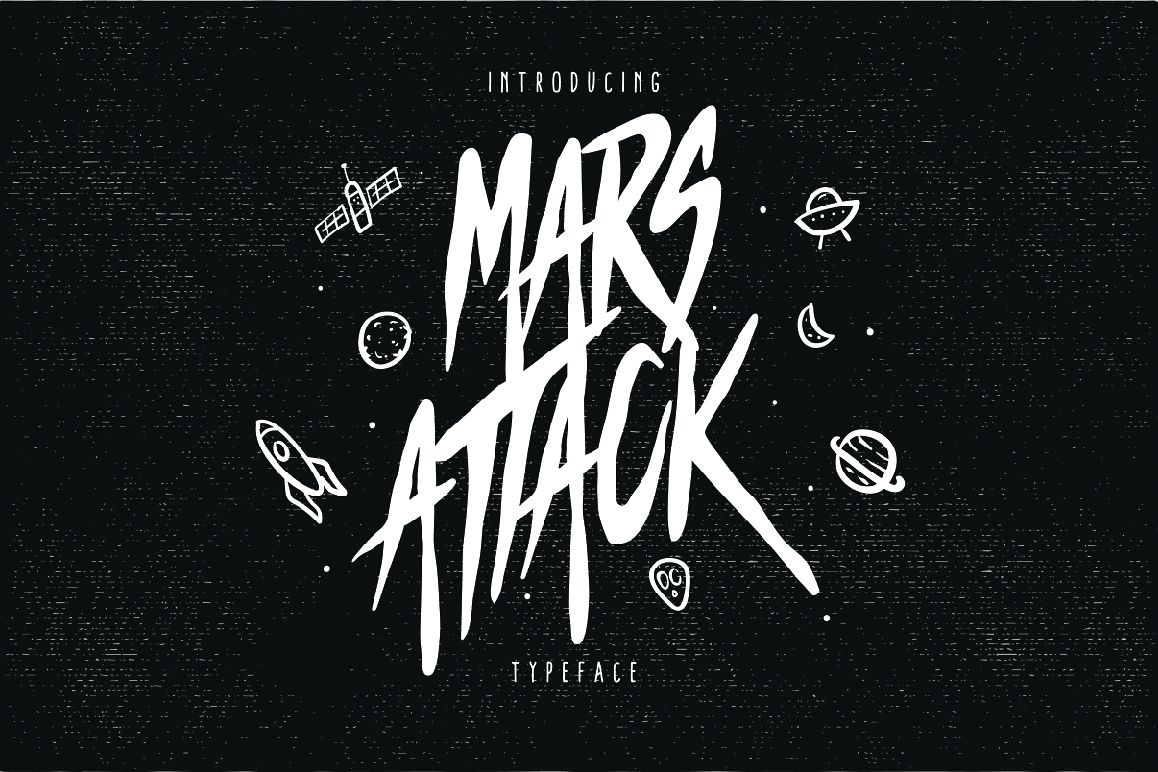
Mars Attack Typeface
MARS ATTACK TYPEFACE can make it easier to convey the message in your design. Use for awesome display, labeling, clothing, movie sceen, poster, movie title, gigs, album covers, logos, and much more.